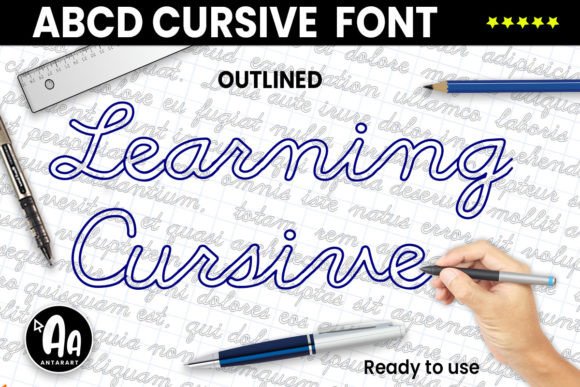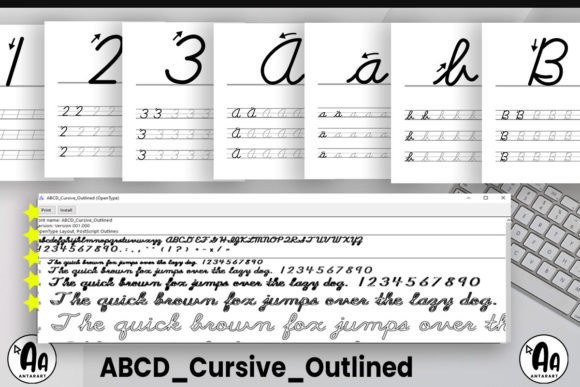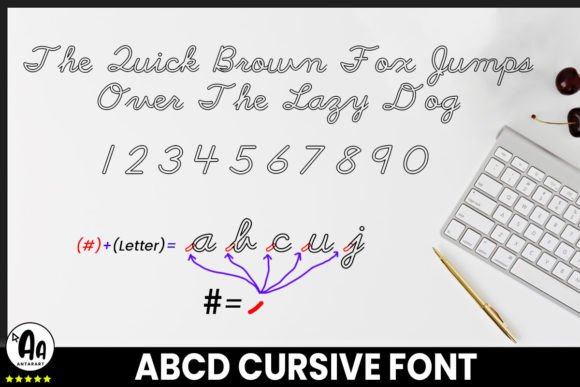
Abcd Cursive Outlined Font
About Abcd Cursive Outlined Font
Abcd Cursive OutlinedFont is a practical and educational typeface designed to make learning cursive handwriting both fun and interactive. Its outlined characters are crafted to help learners trace and practice their strokes with ease, making it ideal for teachers, parents, and students. Because of its versatility, Abcd Cursive Outlined Font is perfect for worksheets, activity books, posters, classroom resources, and creative educational projects.
An Educational Typeface for Learning Cursive
Handwritten fonts are often designed for beauty, but Abcd Cursive OutlinedFont focuses on functionality as well. Its outlined style allows learners to engage directly with each character by tracing and filling in letters. In addition, it provides a clear framework for building handwriting skills while keeping the process enjoyable.
Perfect Typeface for Teachers and Students
Educators will find Abcd Cursive OutlinedFont especially useful in classrooms. For example, it can be used to create custom worksheets that guide students in practicing cursive writing. Moreover, parents can use it at home to support their children’s handwriting development, making practice both accessible and fun.
A Font for Worksheets and Educational Materials
One of the greatest strengths of Abcd Cursive OutlinedFont is its adaptability to worksheets and learning resources. Teachers can generate thousands of unique exercises using standard software. Furthermore, it works wonderfully for activity books, posters, and lesson plans, ensuring students remain engaged throughout the learning process.
Flexible Across Print and Digital Media
Another advantage of Abcd Cursive Outlined Font is its ability to be used across platforms. In print, it enhances classroom materials, practice sheets, and educational books. Digitally, it can be used in interactive learning apps, e-learning platforms, and creative projects. Since it scales perfectly from small worksheets to large posters, it guarantees clarity and usability.